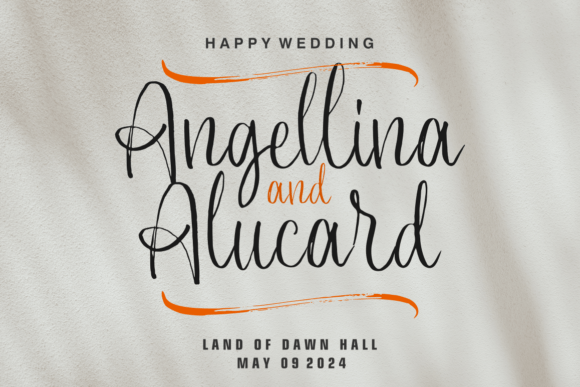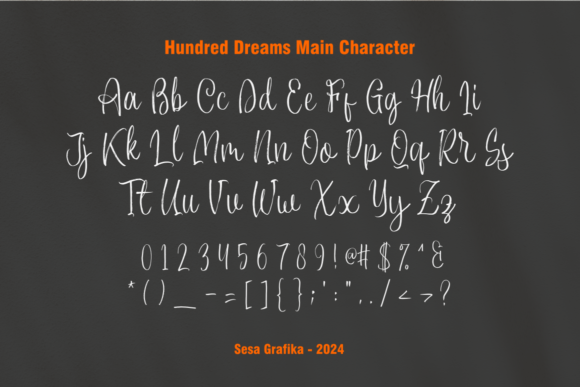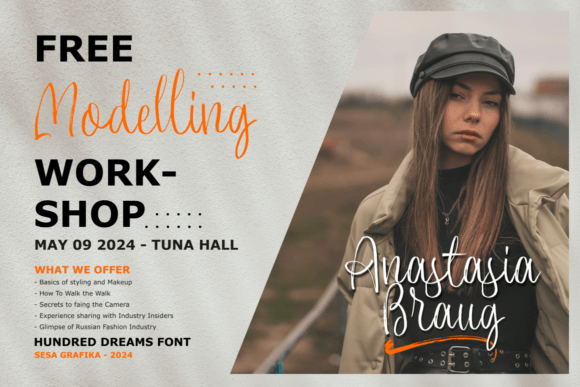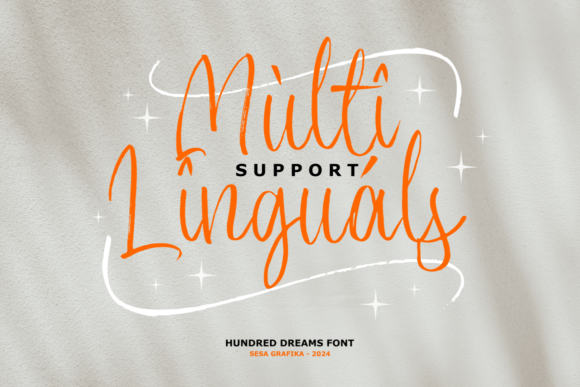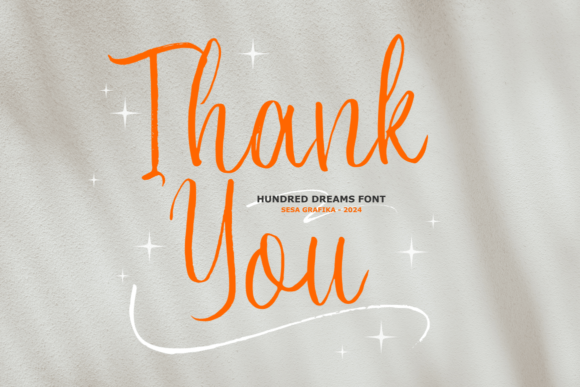
Introduction to Hundred Dreams Font
Hundred Dreams is a trendy Brush handwritten font with a contemporary atmosphere and impeccable form, inspired by timeless classic calligraphy.
It will add elegance and class to any of your design projects Good For Posters, Wedding Invitation, Branding Logo and etc.
Key Features of Hundred Dreams Font